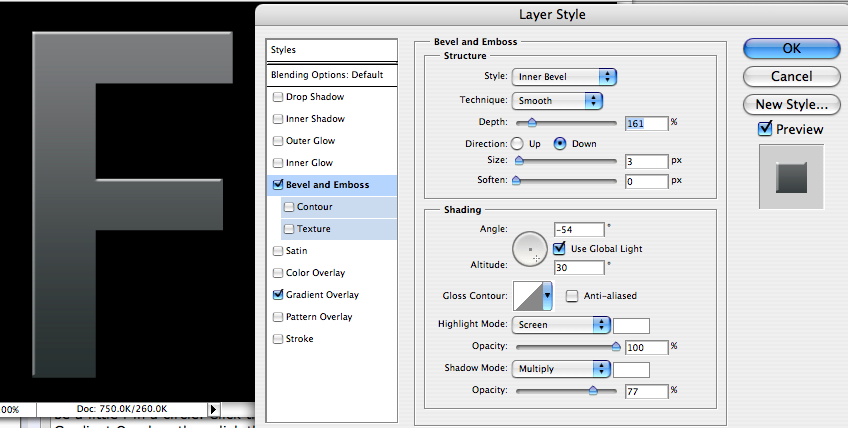
I don't know about making it a font, but it looks like its just a gradient with some light monochromatic noise on it and a bezel around the edge.
How do I do a gradient on text? Never done that before.
I'm assuming there is little change between CS3 and CS1 here.
Type the text in, and on the right where you have a list of layers, there should be a little f in a circle. Click this, and select Blending Options. Click on Gradient Overlay, then click the little gradient bar. For the colour on the left, I used R56, G62, B62, and for the one on the right, R142, G143, B145. It should be a linear gradient at 90 degrees.
You can do the emboss there as well. Have a play with it. I came up with this:
I'm assuming there is little change between CS3 and CS1 here.
Type the text in, and on the right where you have a list of layers, there should be a little f in a circle. Click this, and select Blending Options. Click on Gradient Overlay, then click the little gradient bar. For the colour on the left, I used R56, G62, B62, and for the one on the right, R142, G143, B145. It should be a linear gradient at 90 degrees.
You can do the emboss there as well. Have a play with it. I came up with this:
After reading this thread, I took an attempt at making it, and came up with this:
I also duplicated the text, added Noise (5%, Uniform, Monochromatic) and changed it to 40% Opacity. Looks great! 🙂
Apple's font is Myriad Pro Bold, with 25% extra kerning (space between letters).